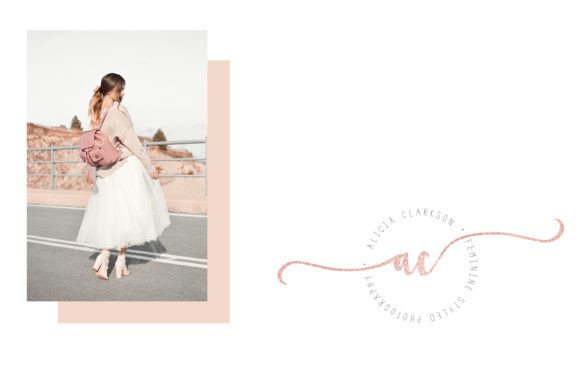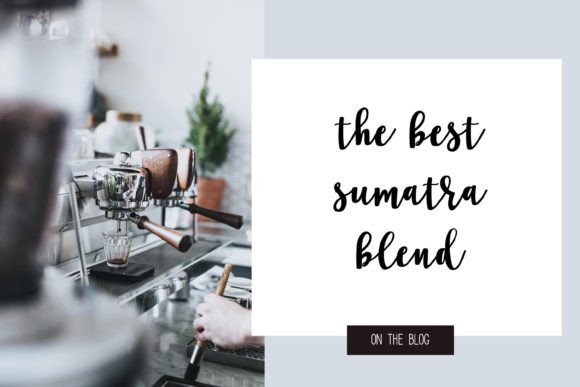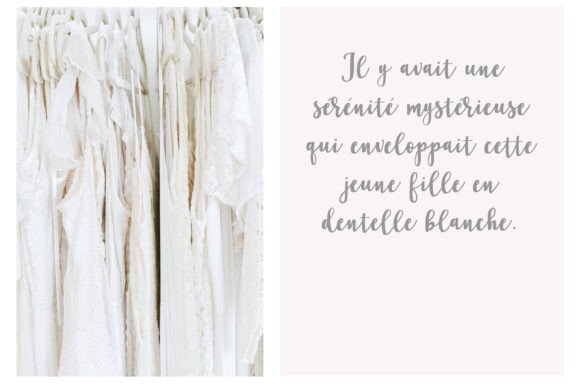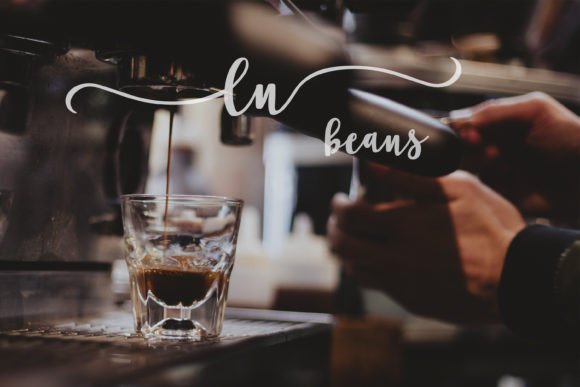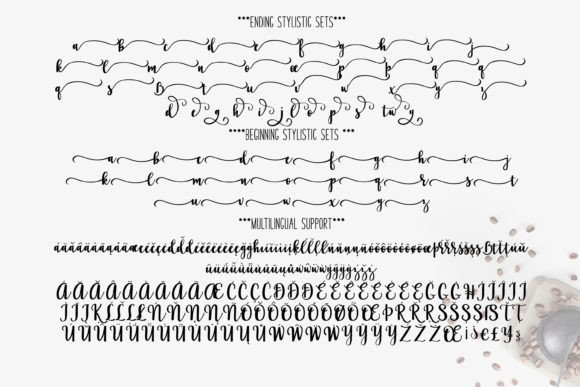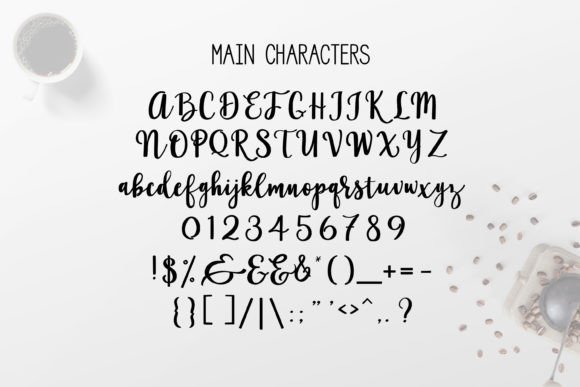
Coffee Shop Script Font: Elevate Your Designs with a Hand-Brushed Charm
Are you a designer, crafter, or DIY enthusiast looking for a unique and versatile font to elevate your projects? Look no further than the Coffee Shop Script Font, a hand-brush font carefully crafted for a wide range of applications, from logos and graphic design to signs, t-shirts, and more.
What Makes Coffee Shop Script Font Special?
Coffee Shop Script Font is a thick, cursive font that strikes the perfect balance between legibility and aesthetics. Its carefully designed strokes and curves make it easily readable, even at larger sizes, making it perfect for signs, t-shirts, and other big-format designs. At the same time, its elegant and fluid lines give it a touch of sophistication, making it suitable for more refined projects, such as logos, cards, and invitations.
Perfect for SVGs and Crafting
One of the standout features of Coffee Shop Script Font is its compatibility with SVGs (Scalable Vector Graphics). This means that you can use it to create stunning, high-quality designs that can be scaled up or down without losing any of their beauty or integrity. Whether you’re creating custom vinyl decals, iron-on designs, or paper crafts, Coffee Shop Script Font is the perfect choice.
Use Cases for Coffee Shop Script Font
The versatility of Coffee Shop Script Font makes it suitable for a wide range of projects, including:
- Logos and branding: Create a unique and memorable logo for your business or personal brand with Coffee Shop Script Font.
- Signs and posters: Use Coffee Shop Script Font to create eye-catching signs and posters for events, promotions, or advertising.
- T-shirts and apparel: Design custom t-shirts, hoodies, and other apparel with Coffee Shop Script Font for a stylish and professional look.
- Cards and invitations: Add a touch of elegance to your cards, invitations, and other paper crafts with Coffee Shop Script Font.
- Graphic design: Use Coffee Shop Script Font in your graphic design projects, such as brochures, flyers, and social media graphics.
Why Choose Coffee Shop Script Font?
So why should you choose Coffee Shop Script Font over other fonts? Here are just a few reasons:
- Unique and hand-crafted: Coffee Shop Script Font is a one-of-a-kind, hand-brush font that adds a personal touch to your designs.
- Highly legible: Despite its cursive nature, Coffee Shop Script Font is easy to read, even at larger sizes.
- Versatile: Use Coffee Shop Script Font for a wide range of projects, from logos and signs to cards and apparel.
- SVG-friendly: Coffee Shop Script Font is optimized for SVGs, making it perfect for crafting and DIY projects.
Tips for Using Coffee Shop Script Font
Here are a few tips for getting the most out of Coffee Shop Script Font:
- Experiment with sizes: Coffee Shop Script Font looks great at a range of sizes, from small and delicate to large and bold.
- Play with colors: Try pairing Coffee Shop Script Font with different colors and textures to add depth and interest to your designs.
- Mix and match: Combine Coffee Shop Script Font with other fonts and design elements to create unique and eye-catching designs.